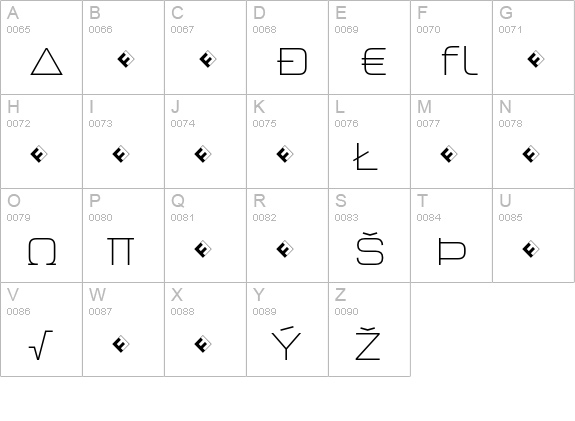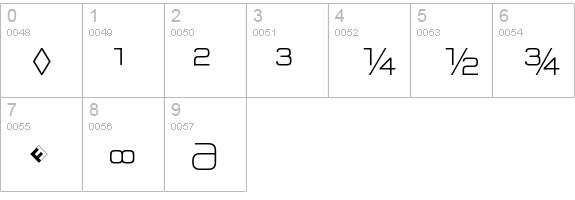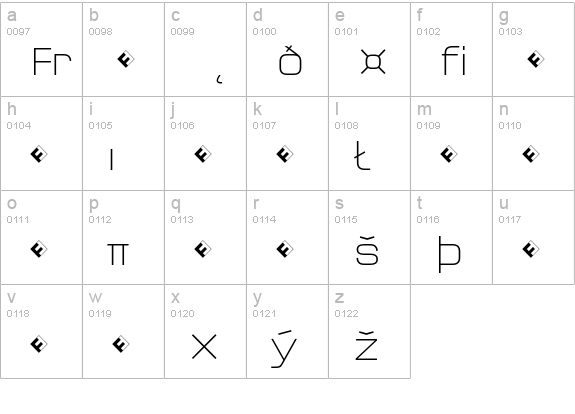
QTypeSquare-ExtraLightExp is a modern and elegant font that exudes sophistication and style. With its extra light weight, it brings a delicate and refined touch to any design project. This font is perfect for creating clean and minimalist designs, while still maintaining an air of uniqueness and charm. Featuring sleek and slender letterforms, QTypeSquare-ExtraLightExp adds a touch of elegance to any text. Its balanced and well-proportioned characters make it easy to read, ensuring that your message is conveyed effortlessly. One of the best aspects of QTypeSquare-ExtraLightExp is that it is free. Yes, you read that right - this incredible font is freely available to download at FontsMarket.com. Now you can elevate your designs without breaking the bank. Whether you are a professional designer or a hobbyist, QTypeSquare-ExtraLightExp is the perfect choice for adding a touch of sophistication to your projects. Designed with versatility in mind, QTypeSquare-ExtraLightExp is suitable for a wide range of applications. From logos and branding to website headers and social media graphics, this font can do it all. Its clean and modern aesthetic will make your designs stand out from the crowd, leaving a lasting impression on your audience. So why wait? Download QTypeSquare-ExtraLightExp now from FontsMarket.com and unleash your creativity. With this font in your design arsenal, you'll be able to create stunning visuals that captivate and inspire. Don't miss out on this incredible opportunity to enhance your design projects with a font that is both elegant and free.